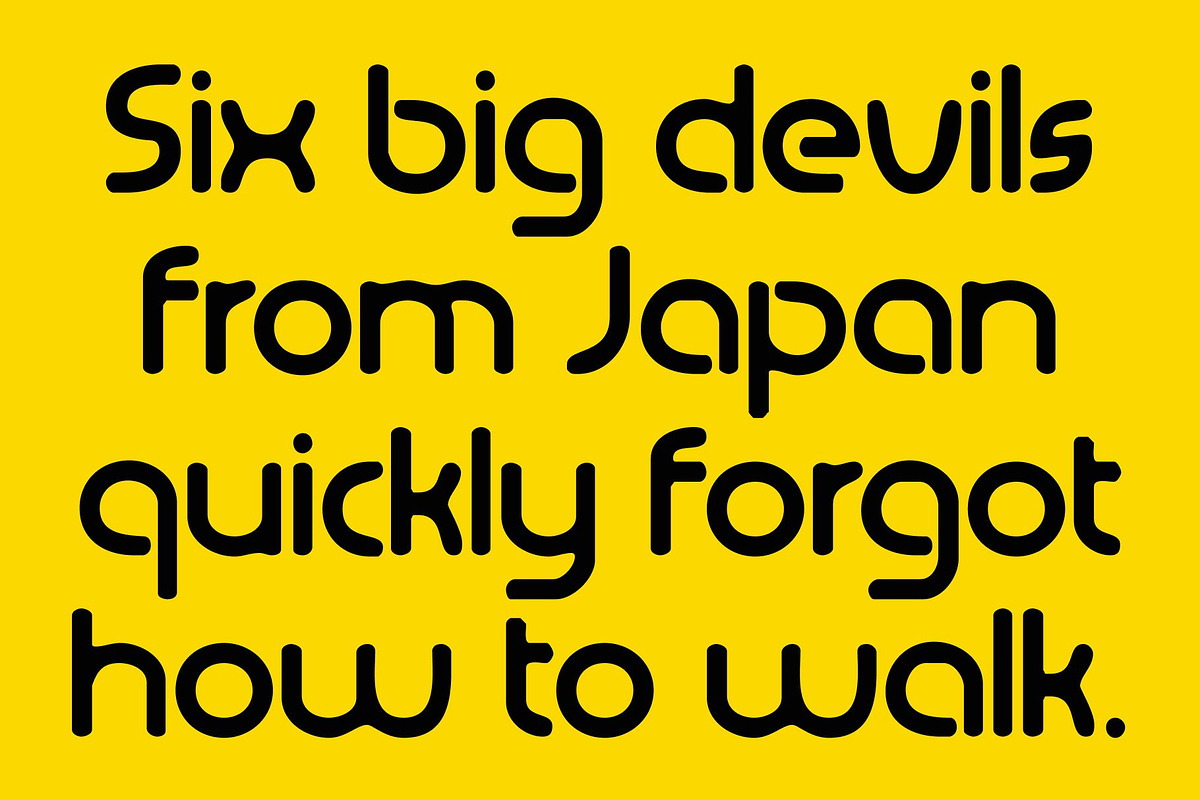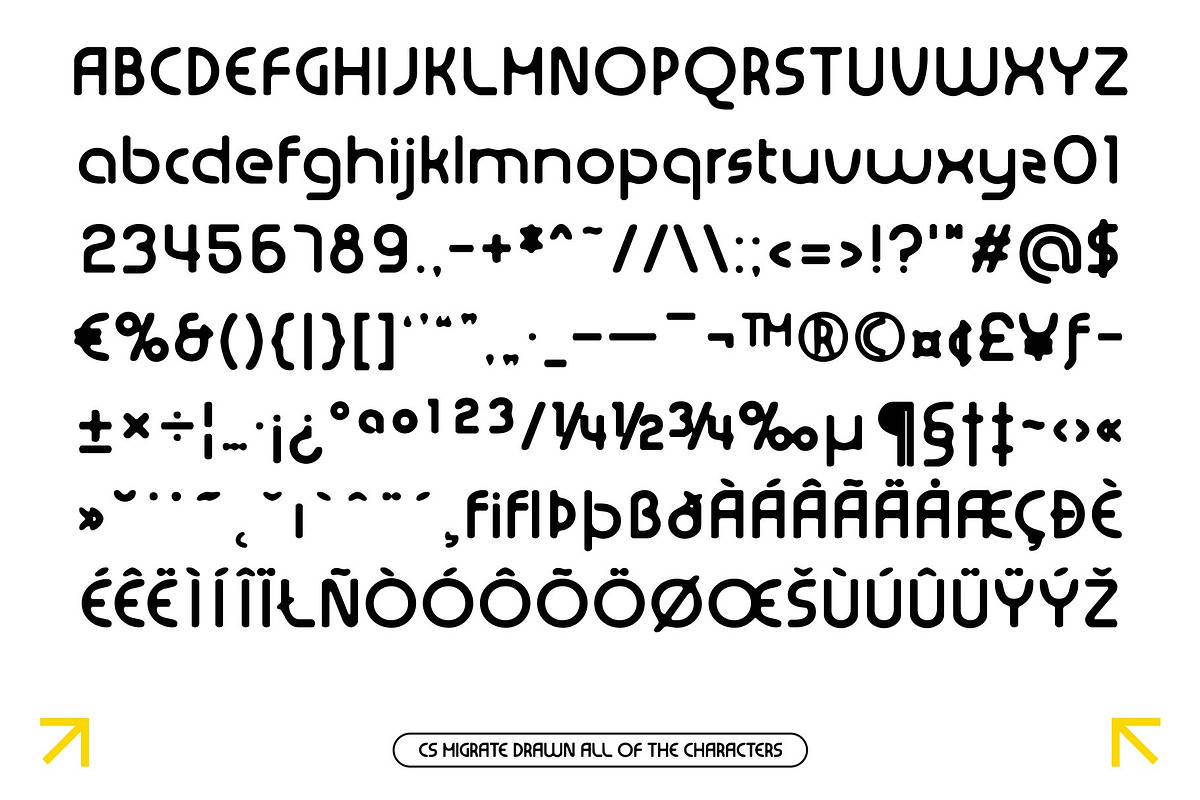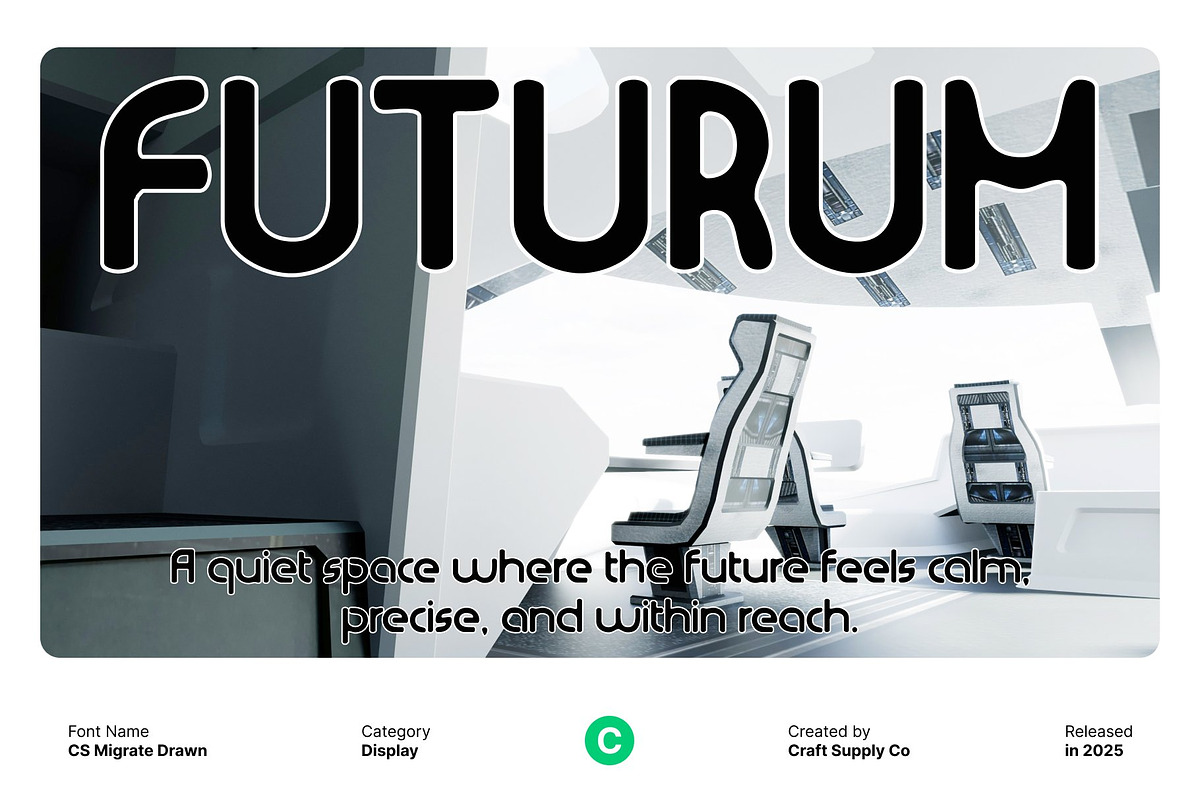
CS Migrate Drawn
CS Migrate Drawn – Bauhaus-Inspired Display Font with Modern Geometry
Bauhaus Influence with Hand-Drawn Expression This is a modern display font inspired by the Bauhaus design movement, celebrating clarity, function, and geometric beauty. Built from clean shapes and modular structures, its bold forms are enhanced by a subtle hand-drawn texture that adds warmth and expressive character to its structured design.
Modular Geometry with Rhythmic Balance Each letterform is constructed from precise geometric elements circles, straight lines, and simplified curves creating a cohesive and harmonious typographic system. This modular approach produces a strong visual rhythm, allowing text to feel organized, bold, and visually engaging while maintaining a distinct artistic presence.
Modern Design Rooted in Timeless Heritage Blending historical inspiration with contemporary execution, this font reflects the Bauhaus philosophy of “form follows function.” Its design communicates innovation, creativity, and progressive thinking, making it ideal for projects that reference iconic modernist design while staying fresh and relevant.
Ideal for Posters, Branding, and Editorial Use Designed for impactful display applications, this font performs exceptionally well in posters, branding identities, editorial layouts, and creative campaigns. Its strong geometry ensures high visibility, while the drawn texture adds personality and sophistication, helping designs stand out with confidence and style.